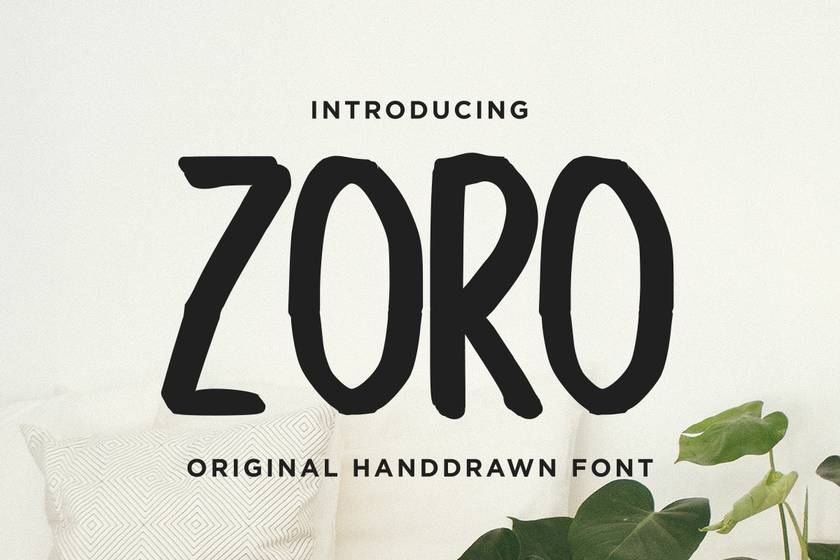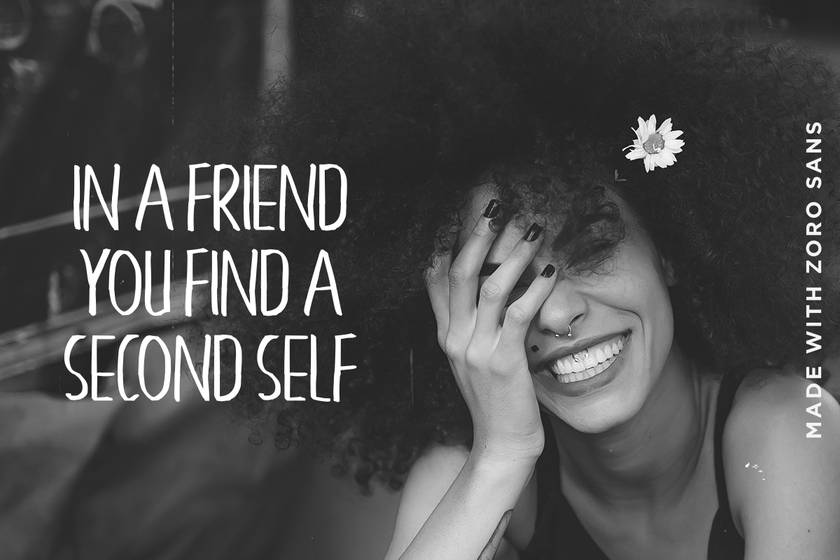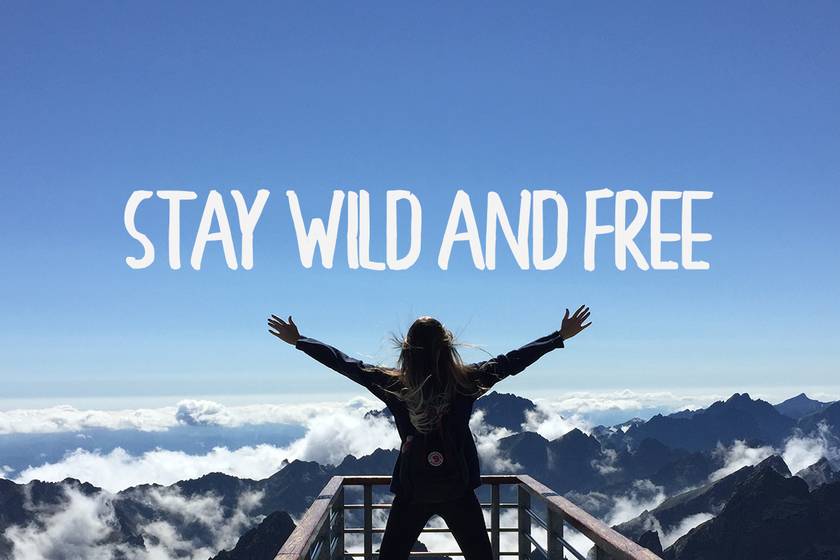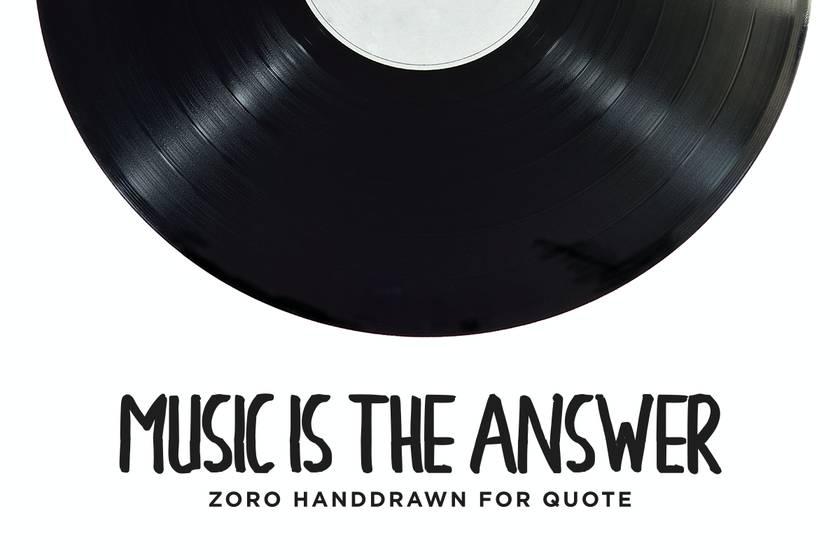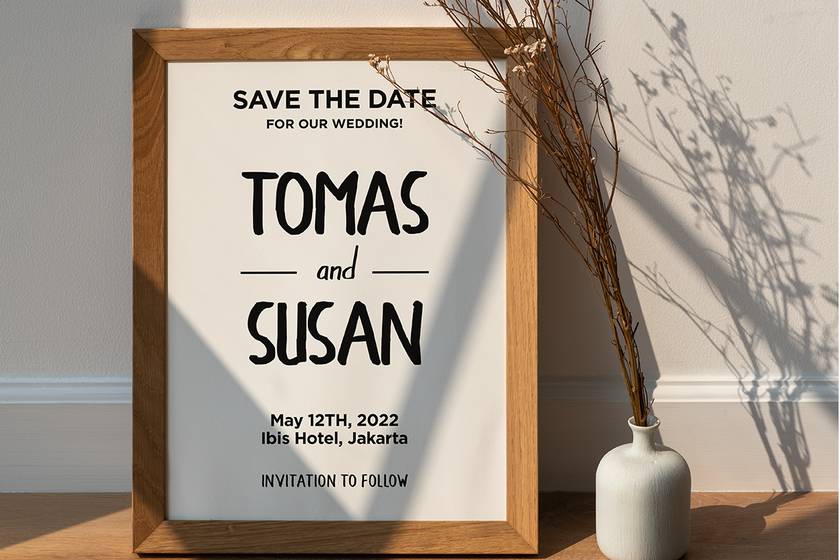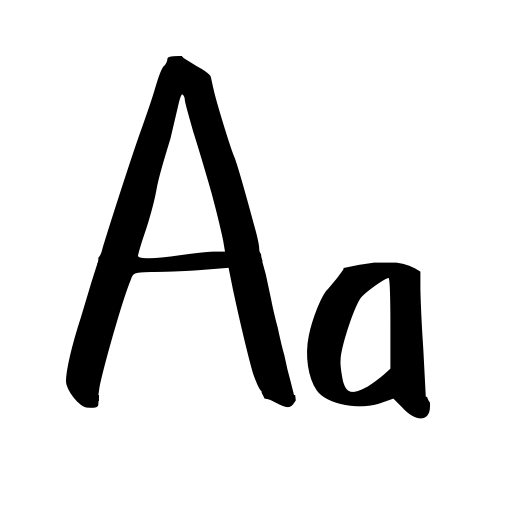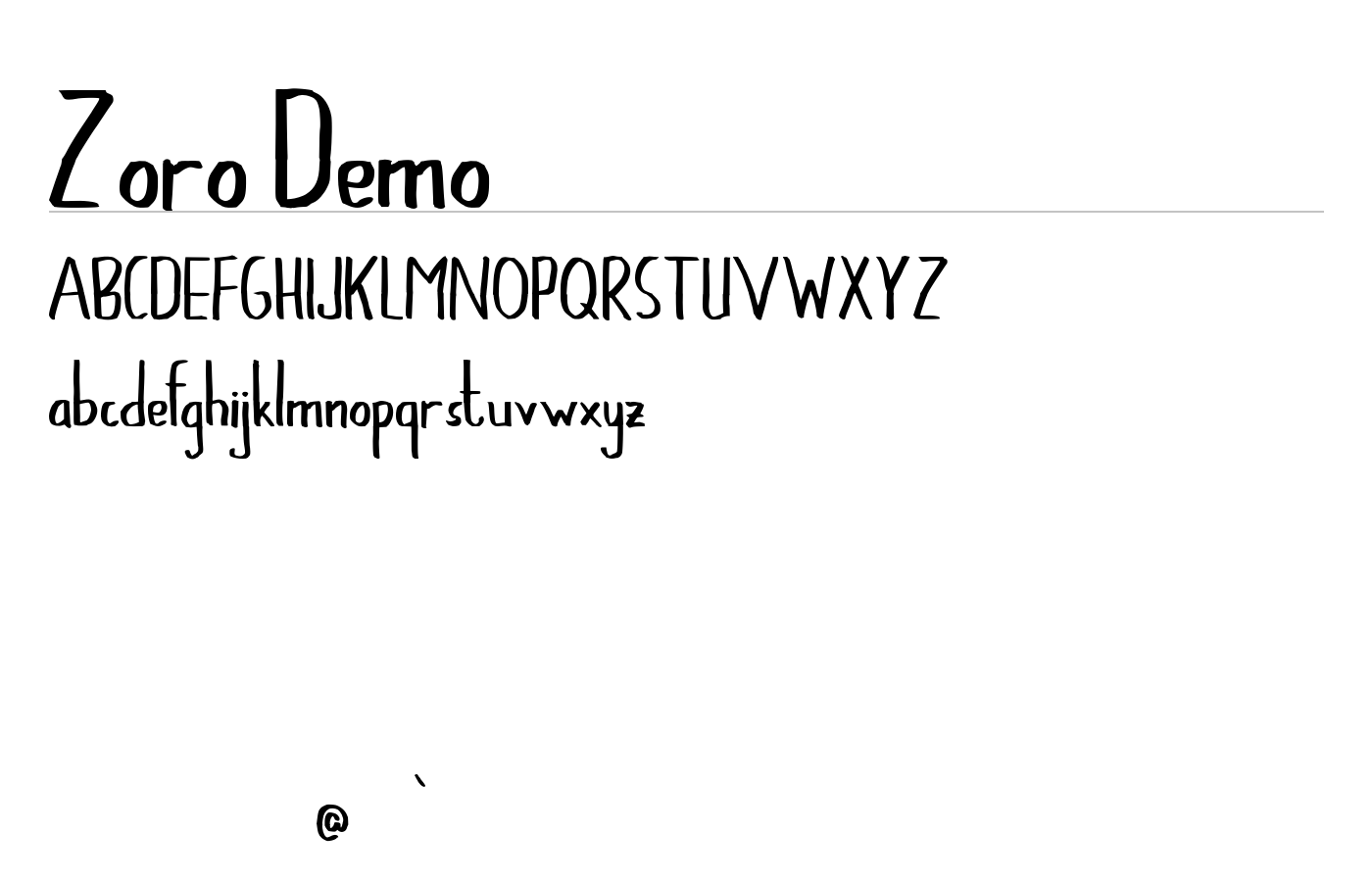
Zoro Font is a quirky and casual handwritten sans serif with a playful, uneven stroke style that gives it a distinct personality. Its tall, narrow letterforms with slight irregularities make it perfect for creative projects, informal branding, or children’s content where a friendly, approachable vibe is desired. This font works well for headlines, posters, and fun editorial designs that need a touch of whimsical charm.
Zoro Font
About Zoro Font
| Designer | Akhmad Husein Rifa'i |